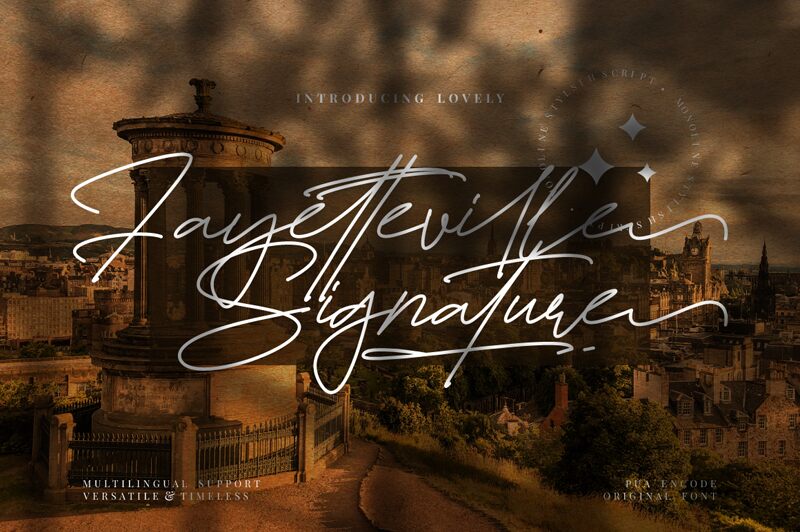
Fayetteville Signature emerges from the creative minds at FinType Studio, embodying the personal touch and fluidity of handwritten artistry. With its light weight and elegant sweeps, this font exudes a bespoke charm that captures the spontaneous grace of ink on paper. The flowing lines and organic structure lend each character a distinct presence, making Fayetteville Signature an exquisite choice for invitations, branding, and personalized stationery.
Its gentle sophistication ensures that it can bring a unique narrative to any creative project seeking a touch of human warmth and refined subtlety.
Fayetteville Signature